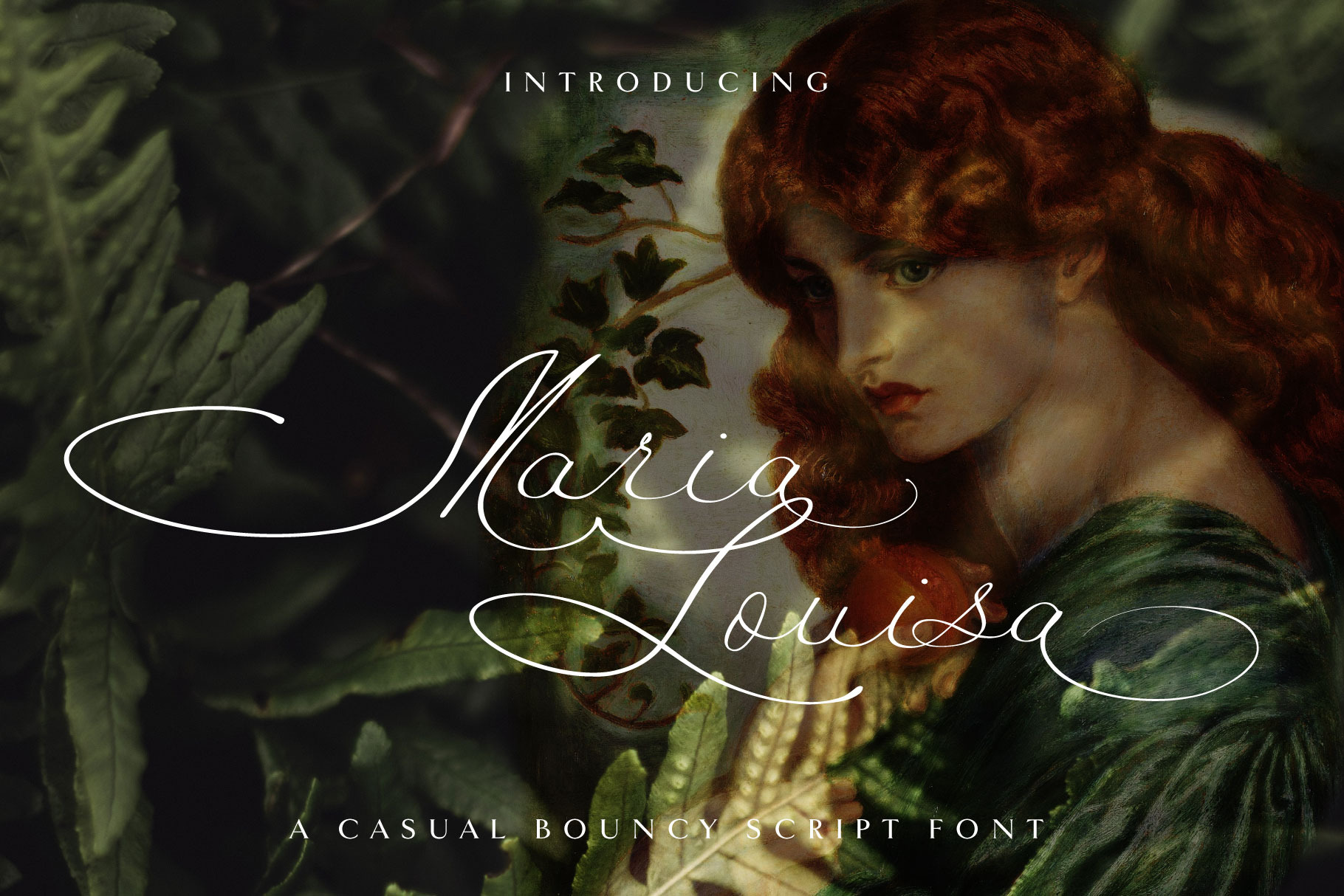
Maria Louisa Script Font
Maria Louisa Script
Introducing Maria Louisa, a casual, bouncy and inky calligraphy script with unique descenders and loops. Perfect for signature style logos, branding, display text, quotes, wedding stationary, packaging, signage, social media and any other projects that require a casual calligraphy style.
Easy to create sophisticated monograms by using the capital letters in Illustrator, Photoshop and similar programs.
The Maria Louisa otf font includes a range of ligatures for a more authentic and natural look plus many stylistic alternates that can be accessed in Illustrator, Photoshop and similar software.